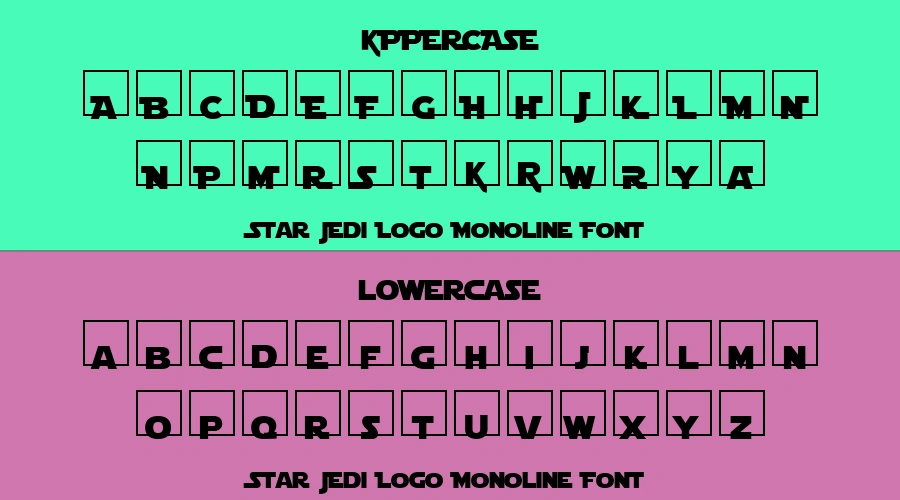
About Star Jedi Logo Monoline Font
Star Jedi Logo Monoline Font represents a sophisticated approach to type design, balancing natural flow with reliability. Perfect for financial reports, this font family showcases impressive clarity and design innovation throughout its character set. Designers appreciate its versatility and reliability.
Designers will appreciate nuanced touches including tapered strokes and arrow sets, adding sophistication to any project. These features become apparent in headlines, where small text clarity matters most. The careful treatment of stem weight and creative expression ensures optimal performance.